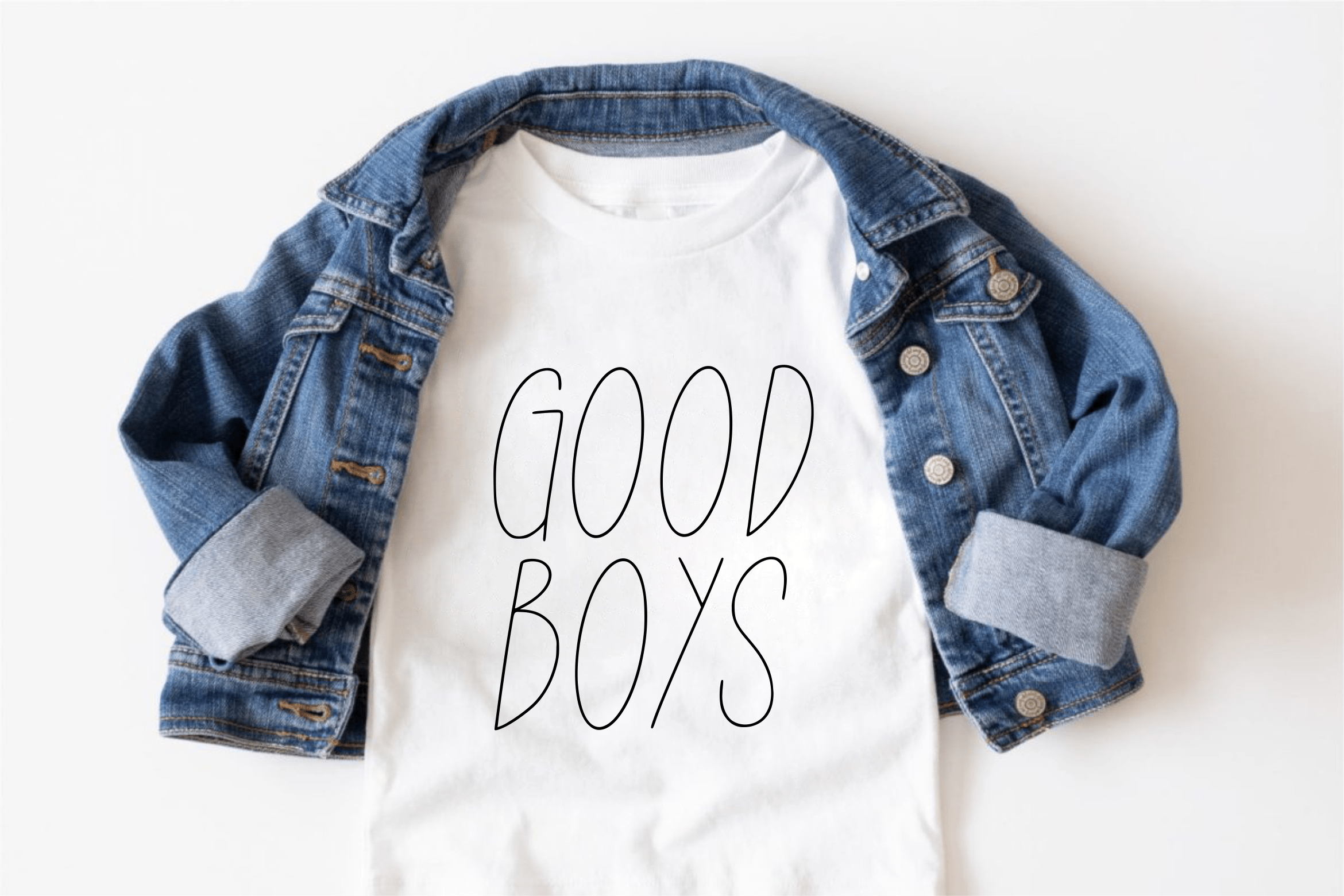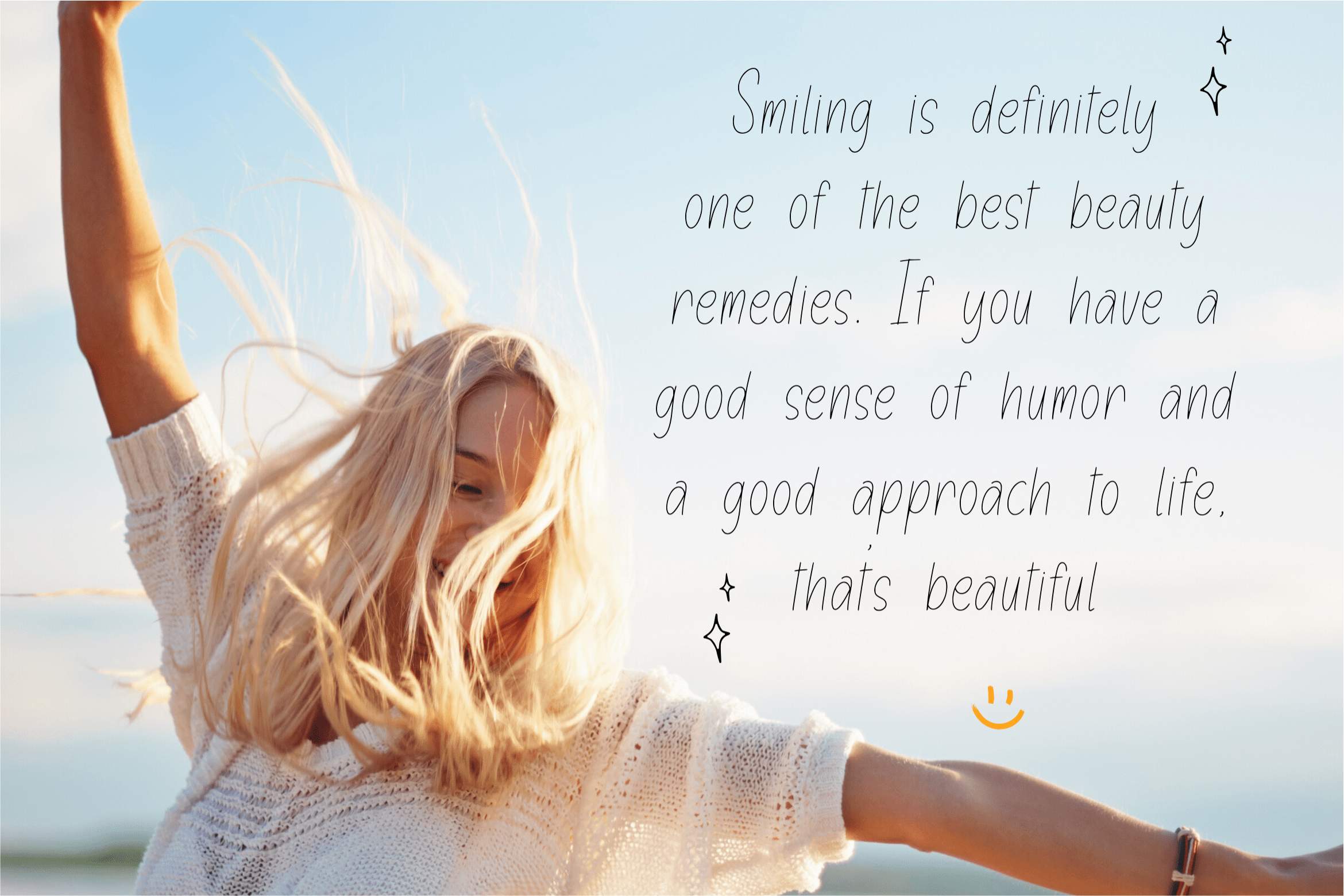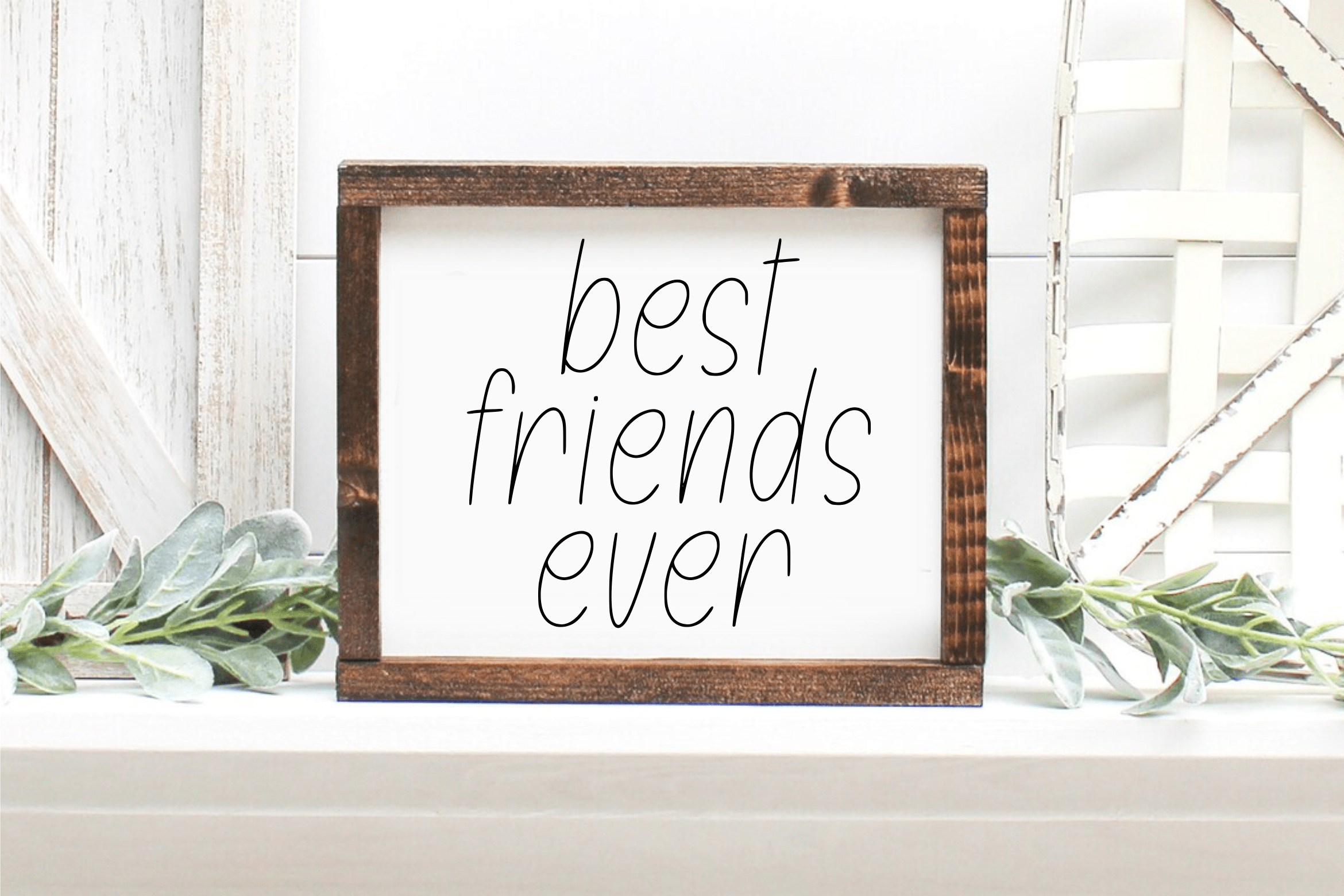
Smileline Font
Smileline Handwritten Font
This is a delicate and elegant handwritten font. Its distinct and well balanced letters make this font a masterpiece. Fall in love with its incredibly versatile style and use it to create spectacular designs!